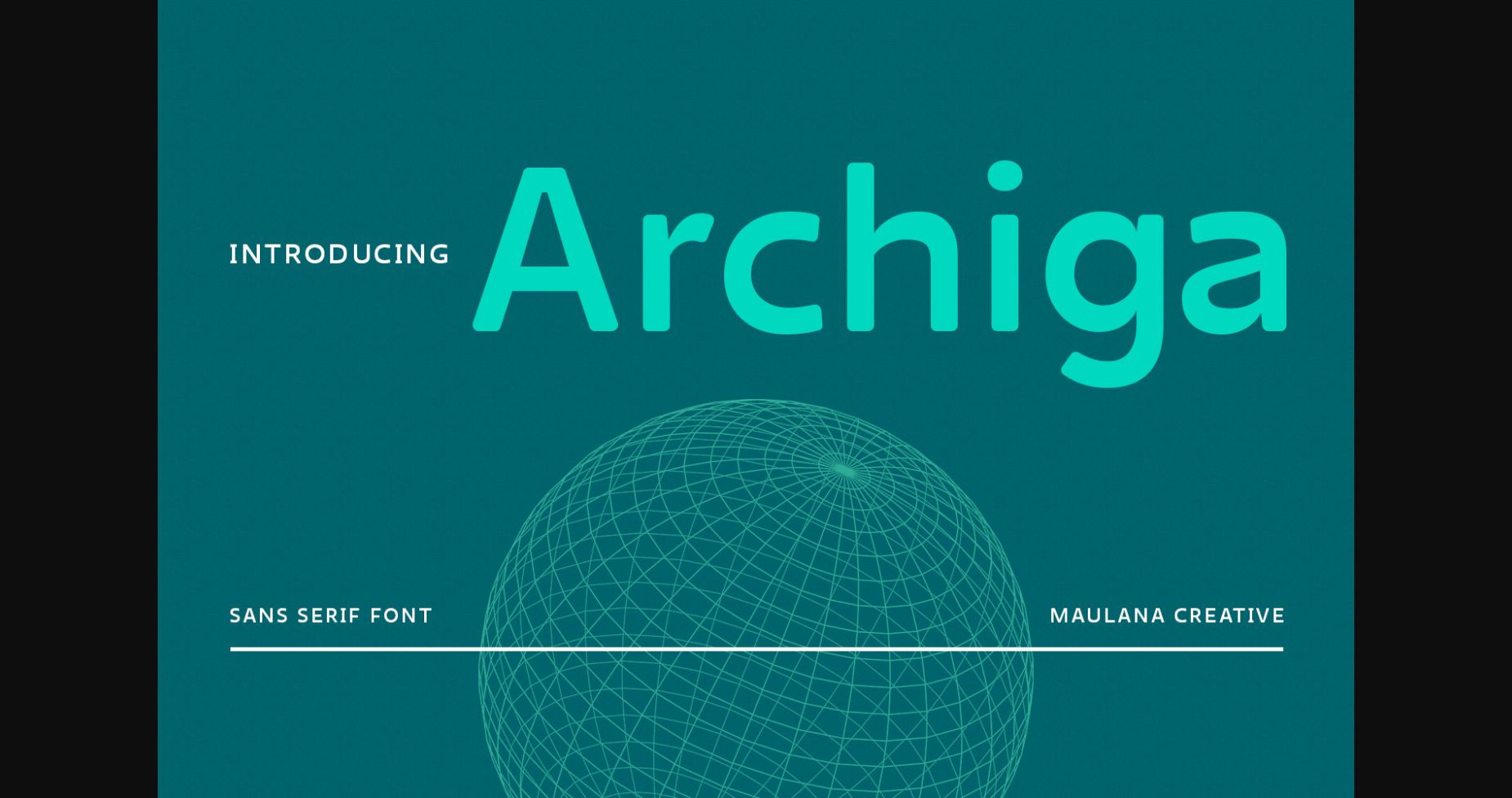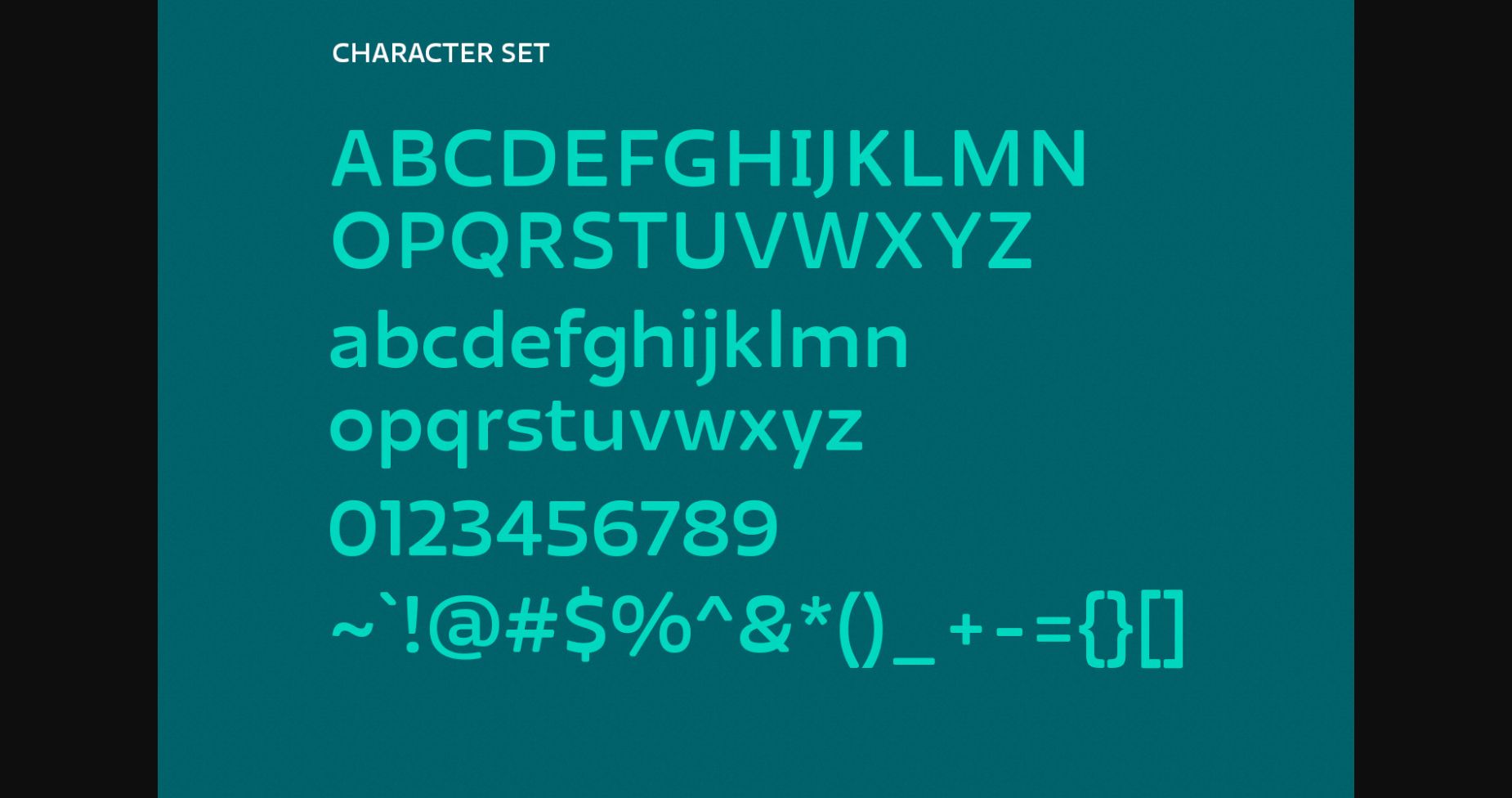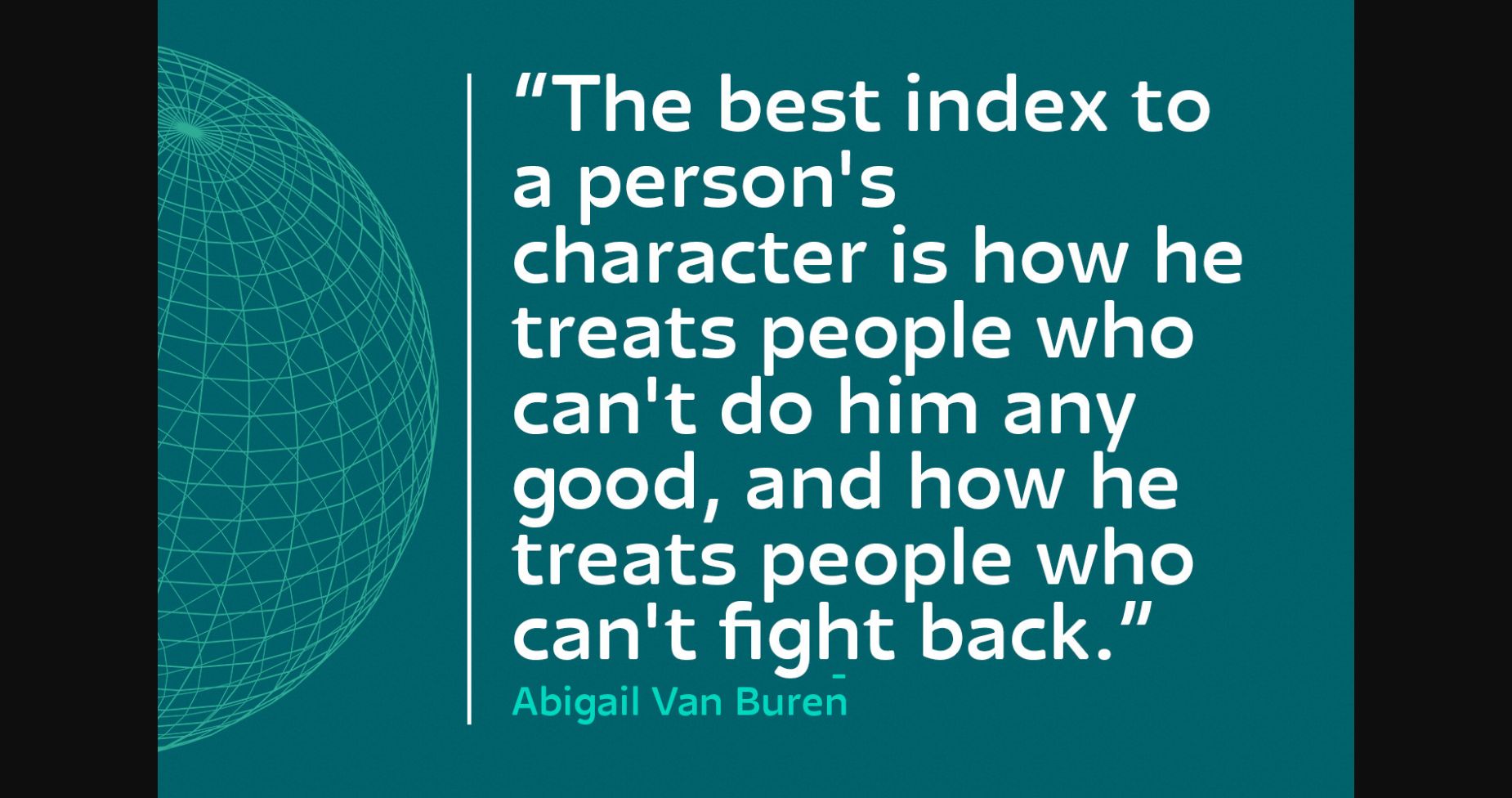
About Archiga Font
Introducing our latest sans-serif font, “Archiga”. With its clean lines and soft curves, Softline exudes modernity and elegance. Each letter is crafted with a delicate touch, giving it a warm and friendly look. Perfect for designs that require a balance of sophistication and approachability. Elevate your projects with Archiga, the clean, soft, and modern sans-serif font.